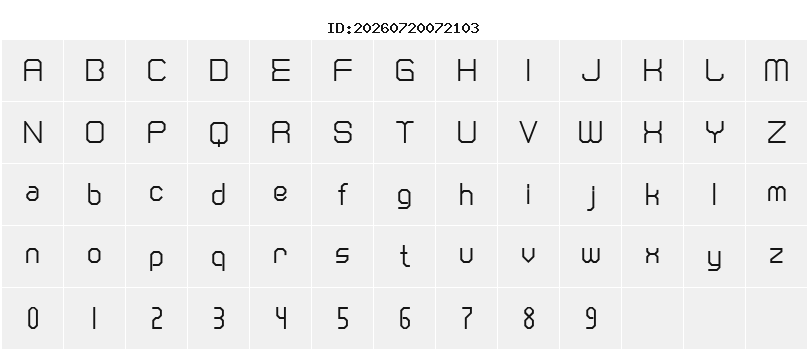
ft21 Preview
• Font Name: ft21
• Full Font Name: ft21
• Designer: FT Content Provider
• Manufacturer: FT Content Provider
About ft21.ttf
ft21.ttf is a modern, elegant sans-serif font designed for ultimate readability and visual harmony. Perfect for branding, headlines, web design, and print materials.